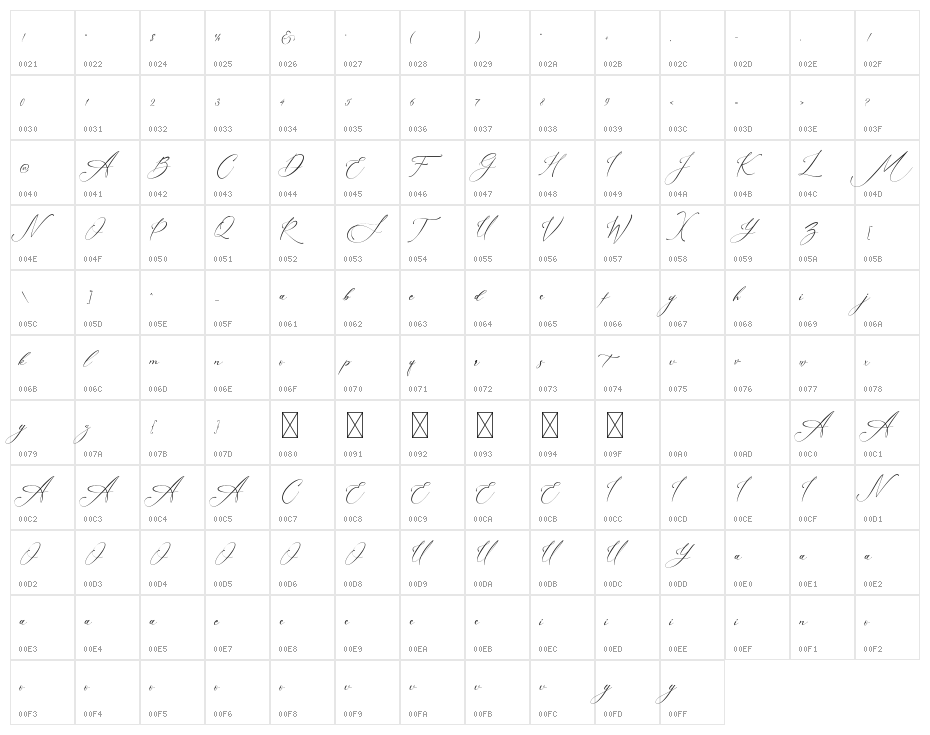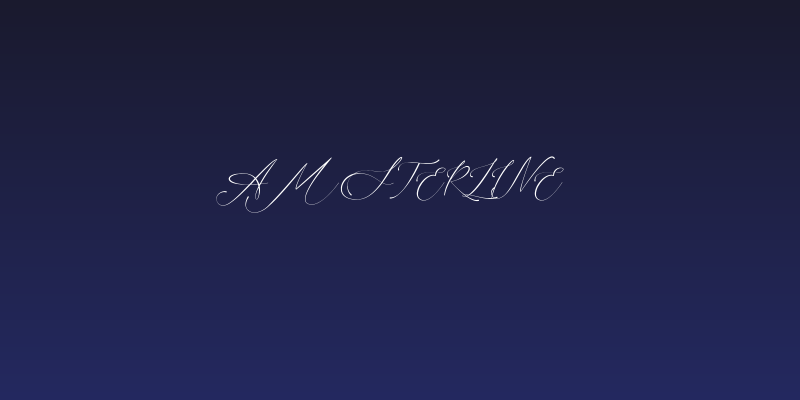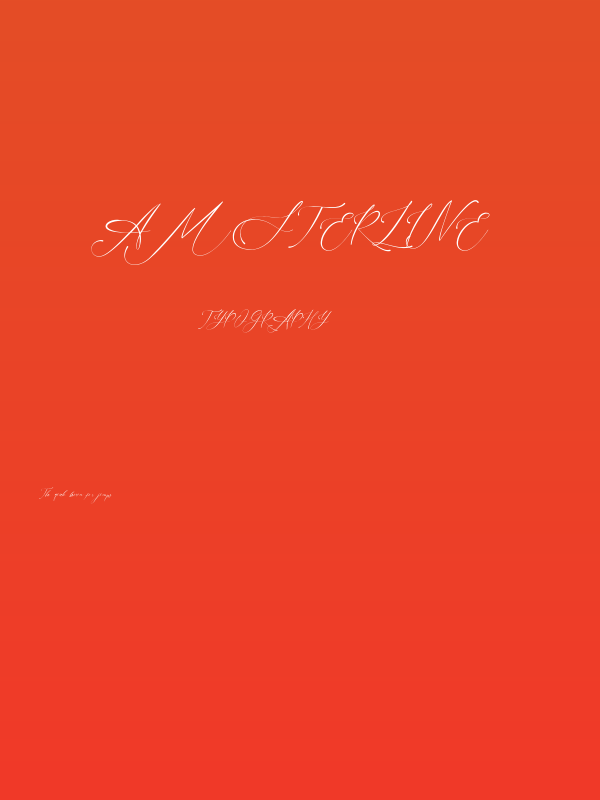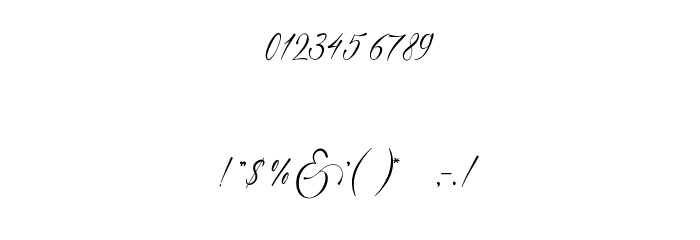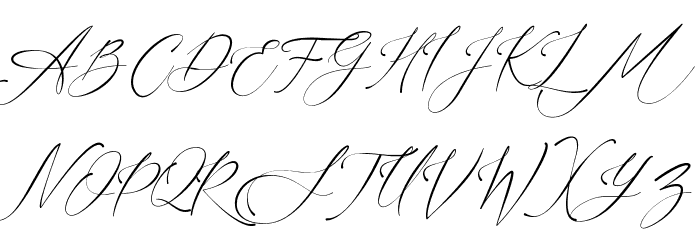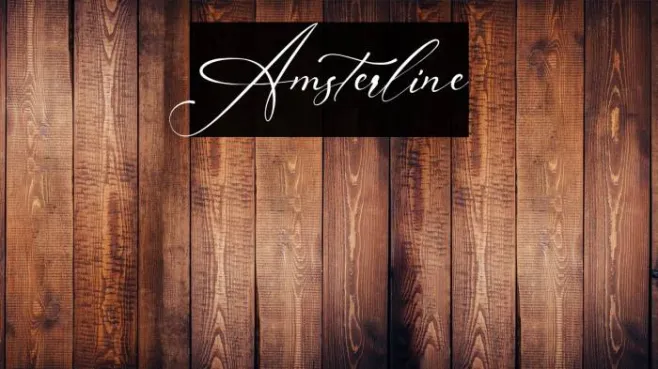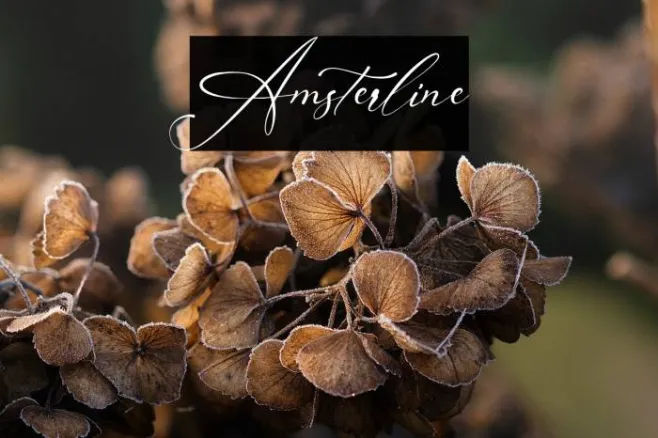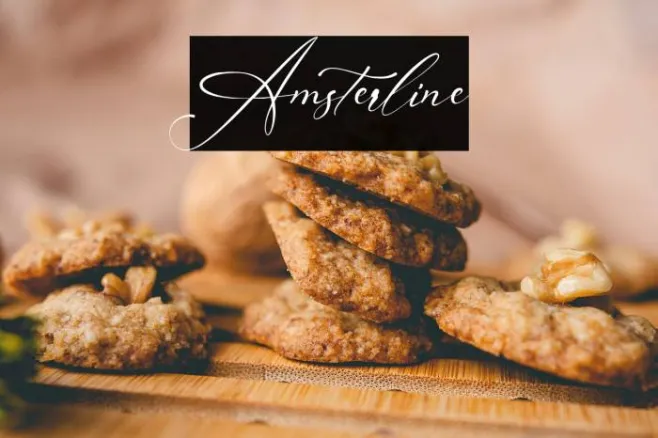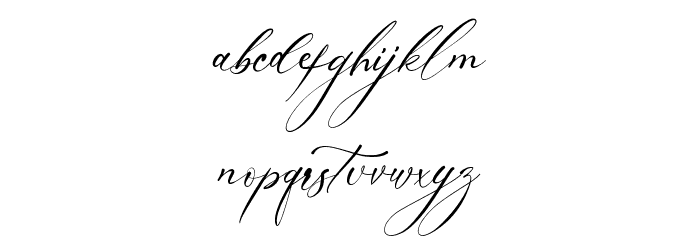
Amsterline Font
Amsterline Description
This elegant script font exudes sophistication and grace, characterized by its flowing, cursive letterforms that mimic the fluidity of handwritten calligraphy. The uppercase letters are particularly ornate, with sweeping ascenders and descenders that add a touch of drama and flair. The lowercase letters maintain a consistent style, ensuring readability while preserving the font's artistic nature. Numbers and special characters are designed with the same attention to detail, making them seamlessly integrate with the alphabet. This font's delicate strokes and high contrast between thick and thin lines contribute to its refined appearance, making it ideal for formal invitations, branding, and decorative purposes.
| Use Case | Invitations, Branding, Decorative text |
| Proposed Projects | Ideal for wedding invitations, luxury branding, greeting cards, and decorative projects. |